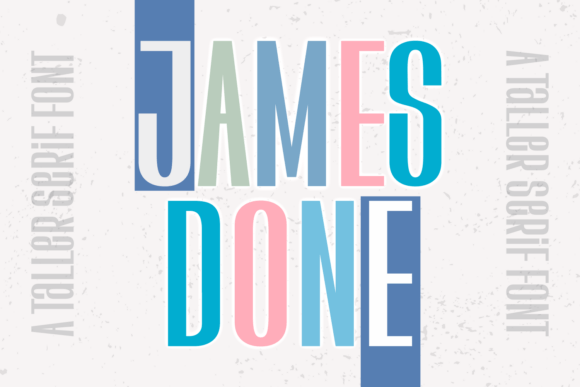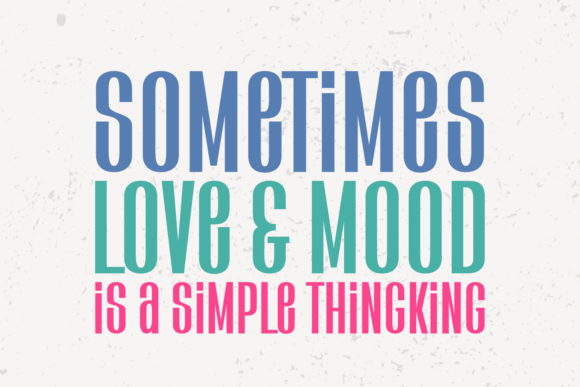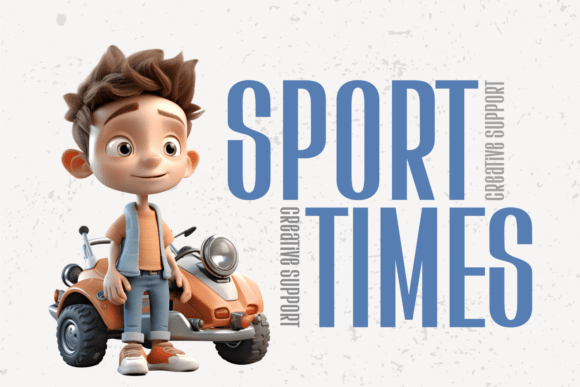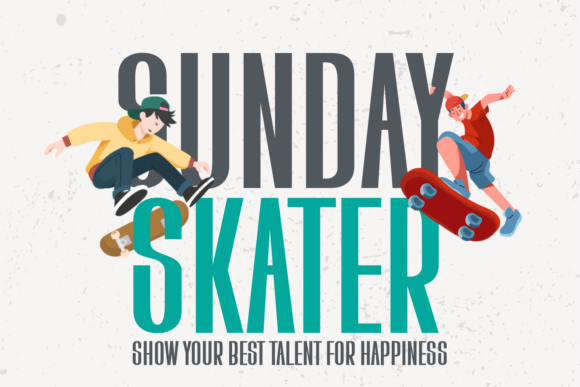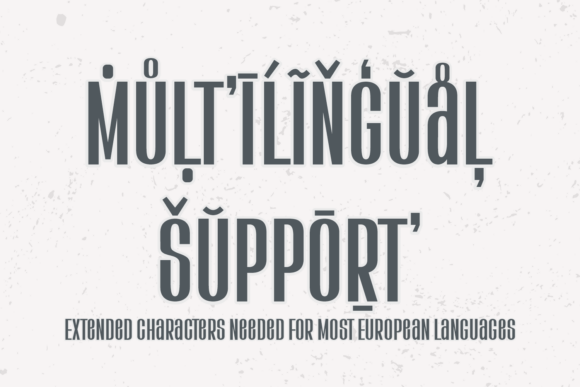
Unleash Your Creativity with the Jamesdone Font
Have you ever stared at a blank canvas, waiting for inspiration to strike? That’s exactly where I was when I first laid eyes on the Jamesdone Font. Its raw energy and bold typography instantly sparked a creative spark within me.
The Jamesdone Font is a game-changing addition to the industrial-style sans-serif family, designed to empower your designs with a fierce and unapologetic attitude. With its large, bold letters, this font is perfect for logos, advertising materials, apparel, and more. What sets it apart is its versatility, allowing you to mix and match characters to create visually striking contrasts that add a rhythmic beat to your designs.
Jamesdone Font Key Features
- Font Family: Jamesdone Font is a modern sans-serif font family designed for various digital and print applications.
- Unique Characteristics: Jamesdone Font features a clean, minimalist design with a subtle rounded edge, making it ideal for corporate branding, digital signage, and editorial content.
Designer Review: Jamesdone Font
Overall, I think Jamesdone Font is an interesting addition to the font family. Here are some of its strengths and weaknesses.
- The font has a clean and modern aesthetic, making it suitable for various digital applications, such as website headers and social media graphics.
- The font’s variable font technology allows for a wide range of customization options, making it a great choice for designers who need to accommodate different design requirements.
- The font includes a wide range of languages, including many non-Latin scripts, which can be beneficial for designers working on international projects.
- The font’s variable font technology can be overwhelming for designers who are not familiar with it, which may lead to some usability issues.
- The font’s modern aesthetic may not be suitable for more traditional or vintage-themed designs.
- The font’s default weight may not be suitable for all text sizes, and designers may need to adjust the weight to achieve the desired visual effect.
Overall, I think Jamesdone Font is a solid choice for designers who need a modern, variable font that can accommodate a wide range of design requirements. However, it may not be the best choice for designers who are looking for a more traditional or vintage aesthetic.
Jamesdone Font is ideal for creating modern and stylish designs. Some common use cases include:
- Web design and development.
- Print design and marketing materials.
For best results, use Jamesdone Font in combination with bold and clean designs. Experiment with different font sizes and colors to create a unique visual identity.